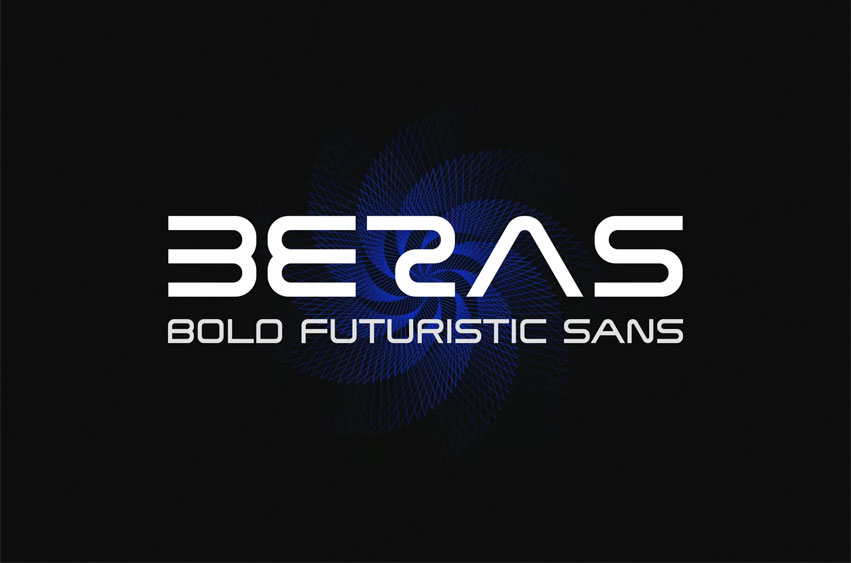
Beras Font Bold Futuristic Sans is a bold and authentic display font. The font is suitable for any branding project like logo, esport, and many more.
• Alternate